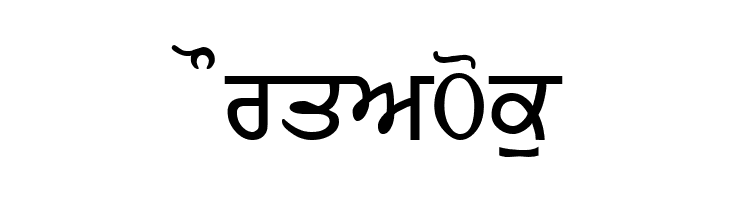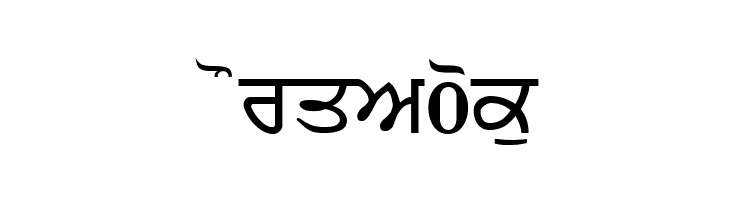
P-RUBY Font
A modern script font with balanced strokes and elegant design.
MUNNA Font
A bold, culturally inspired font with strong, angular strokes.
RUBYSARP Font
A bold and distinctive font with a strong, authoritative presence.